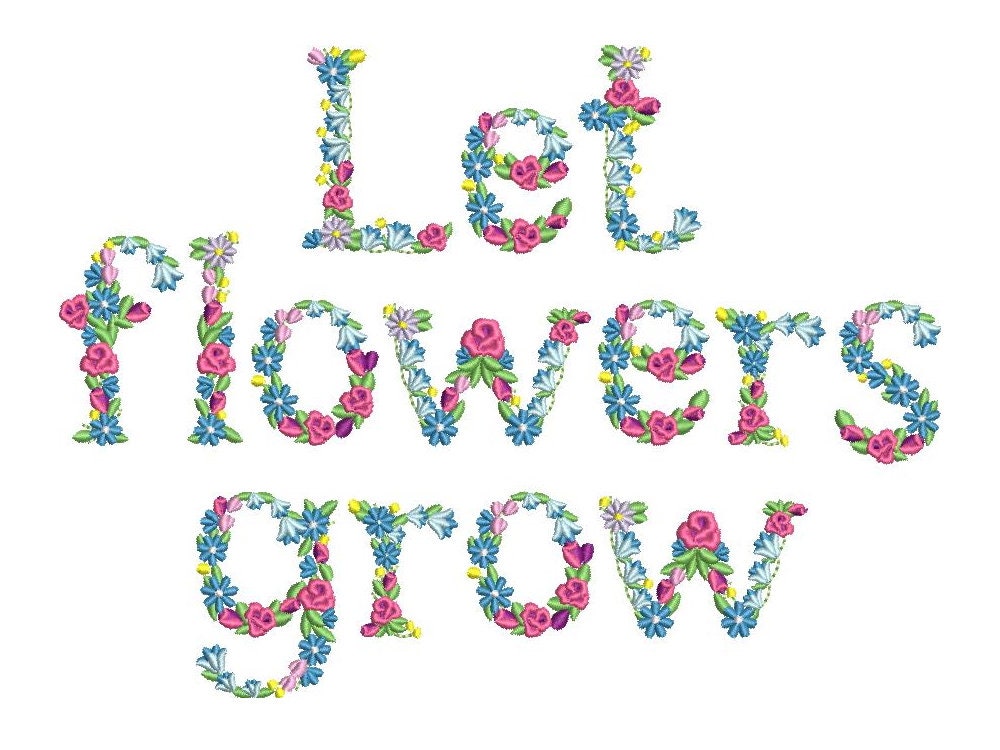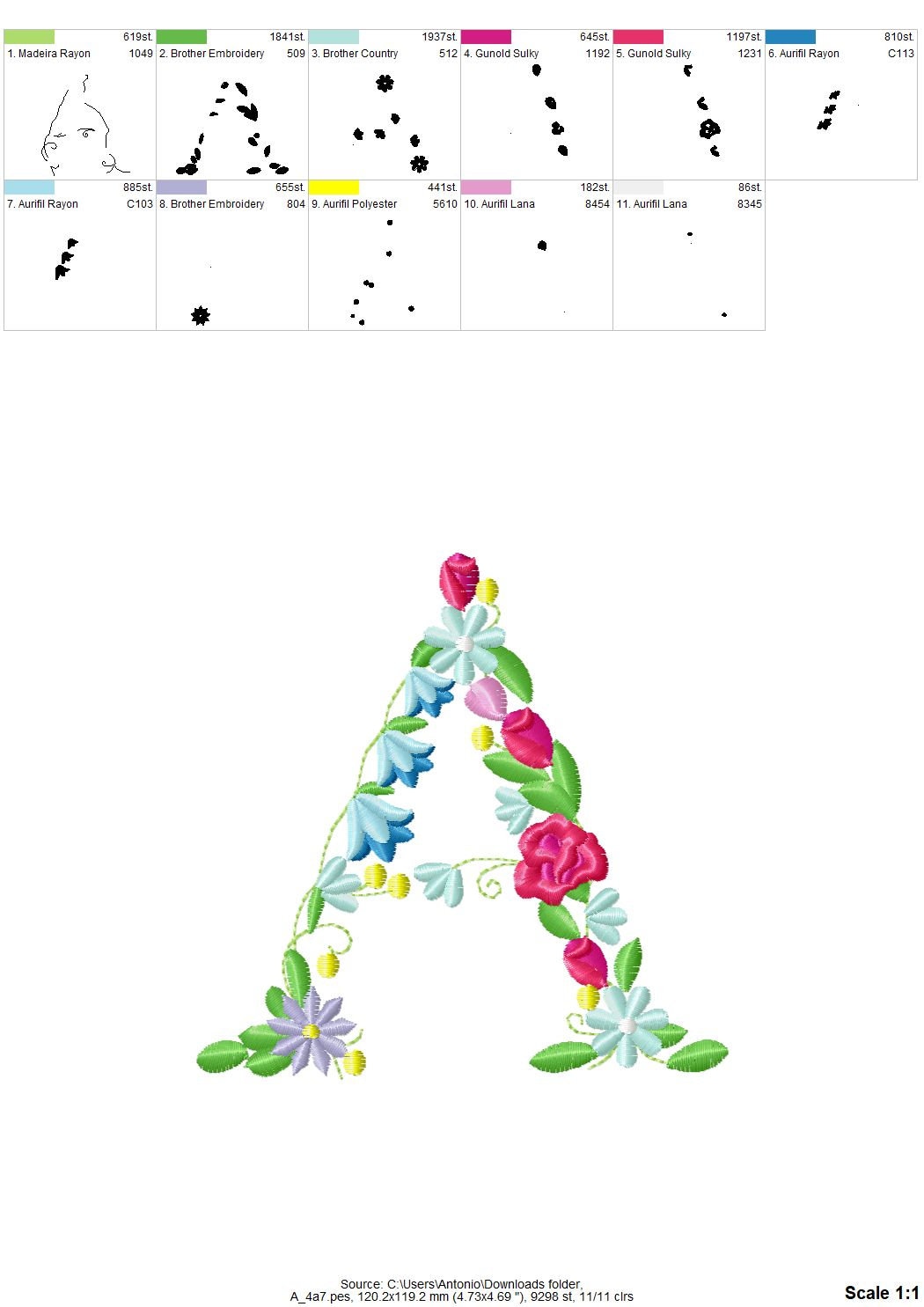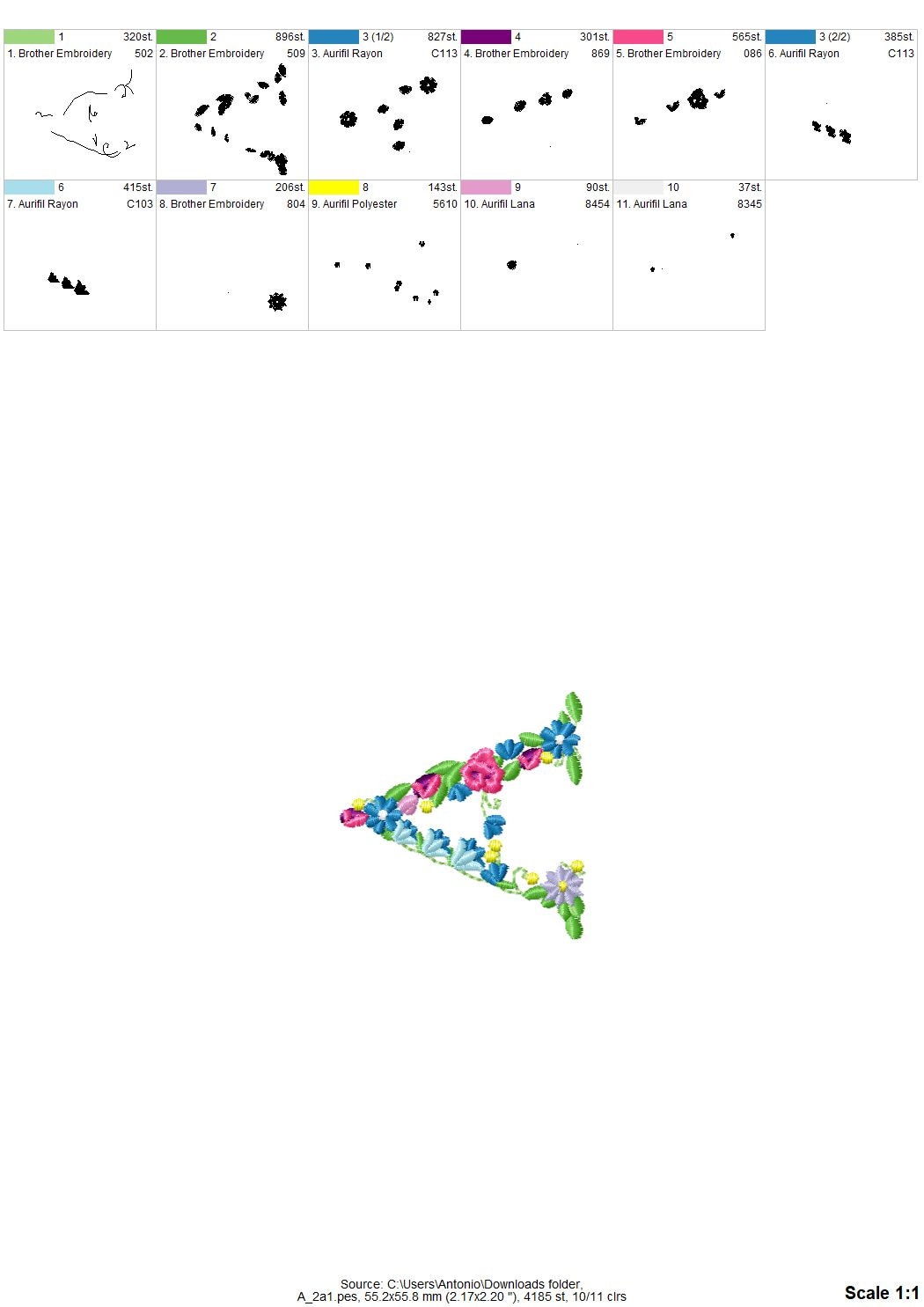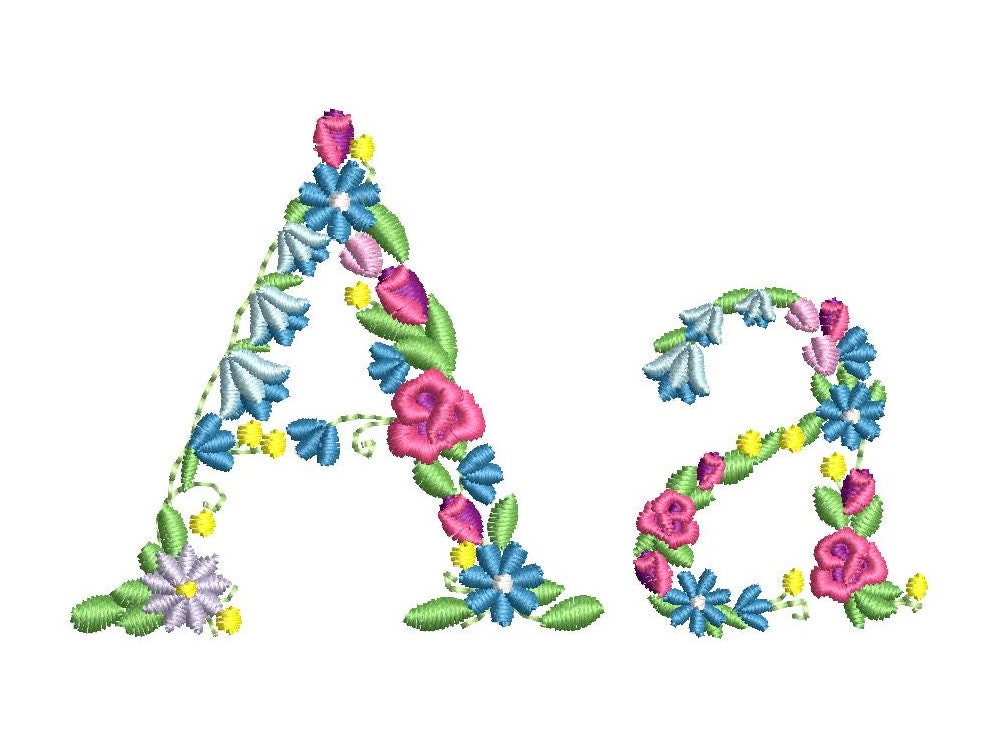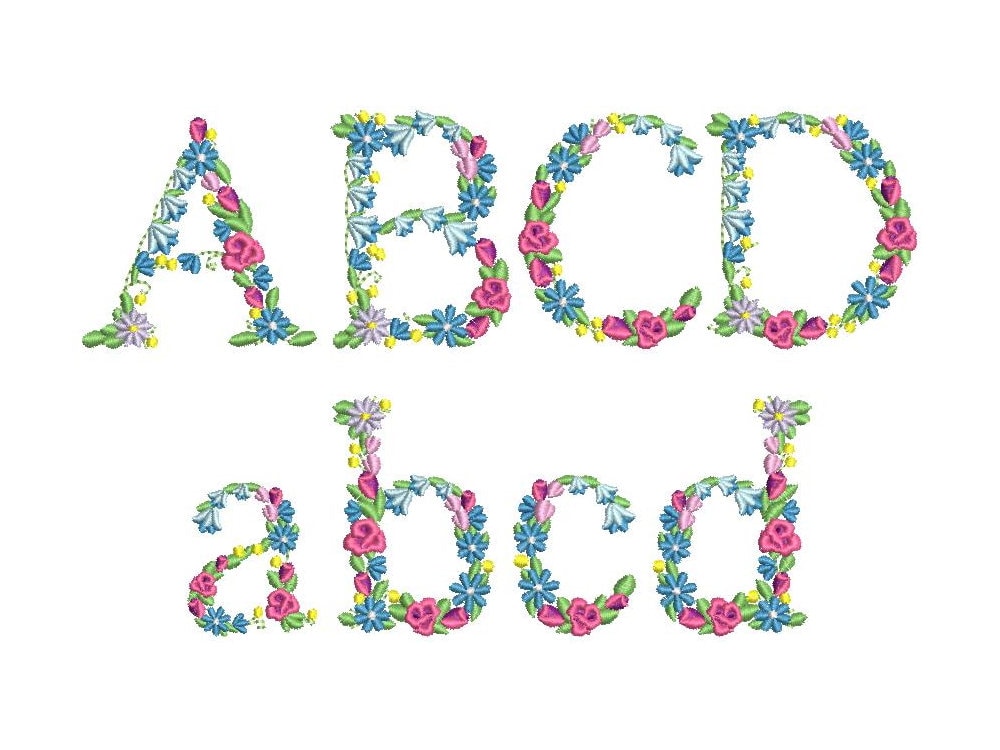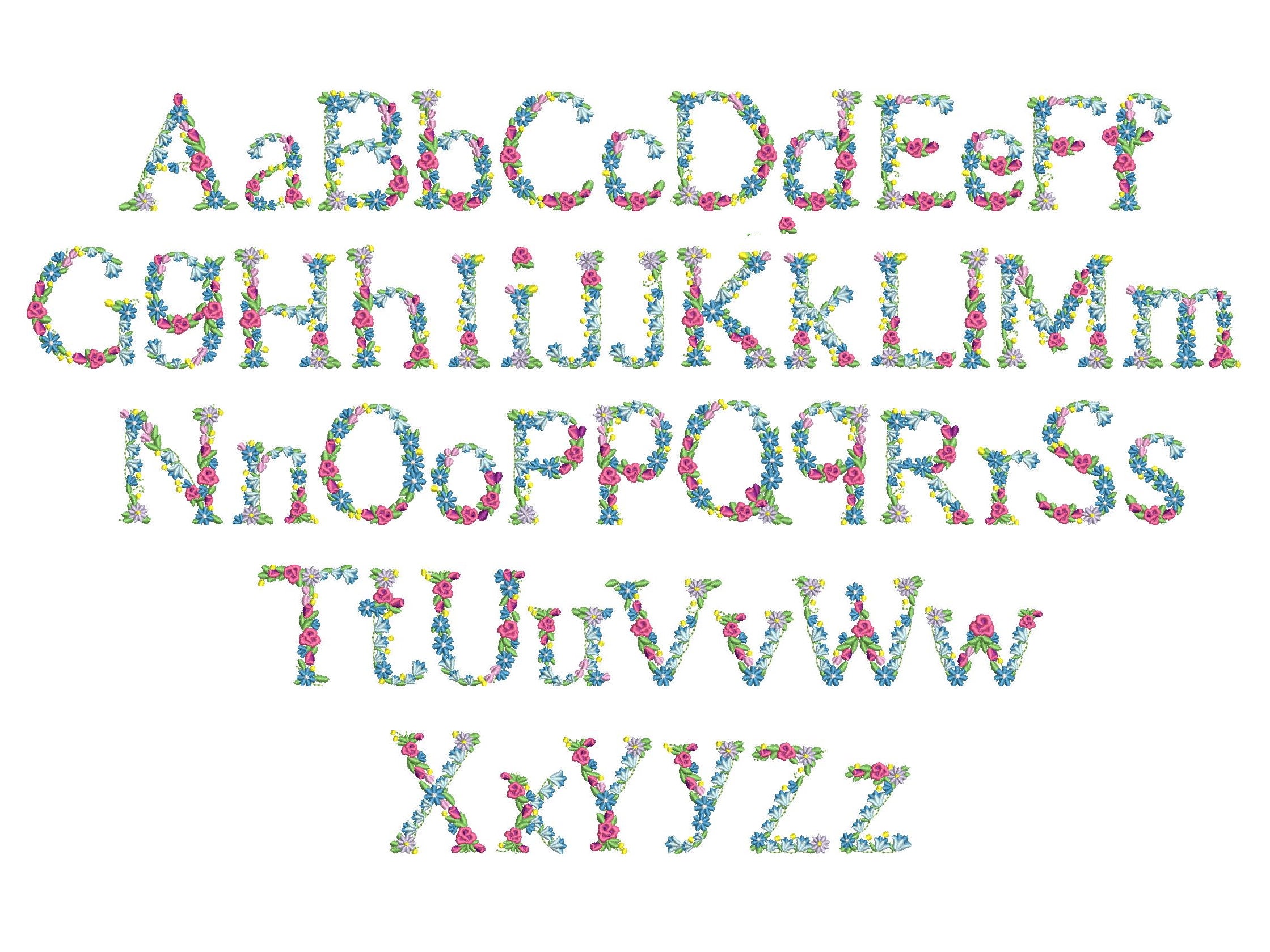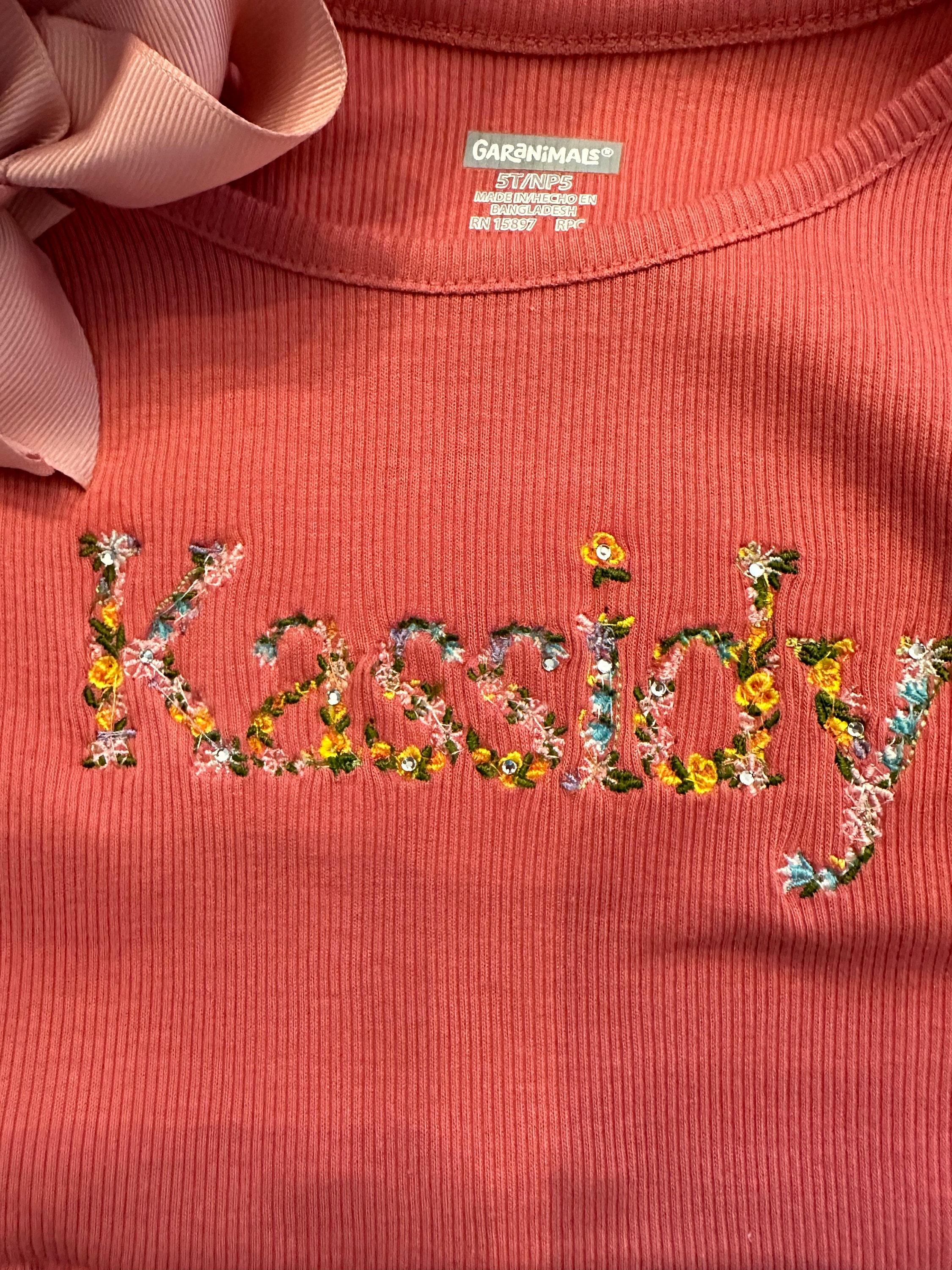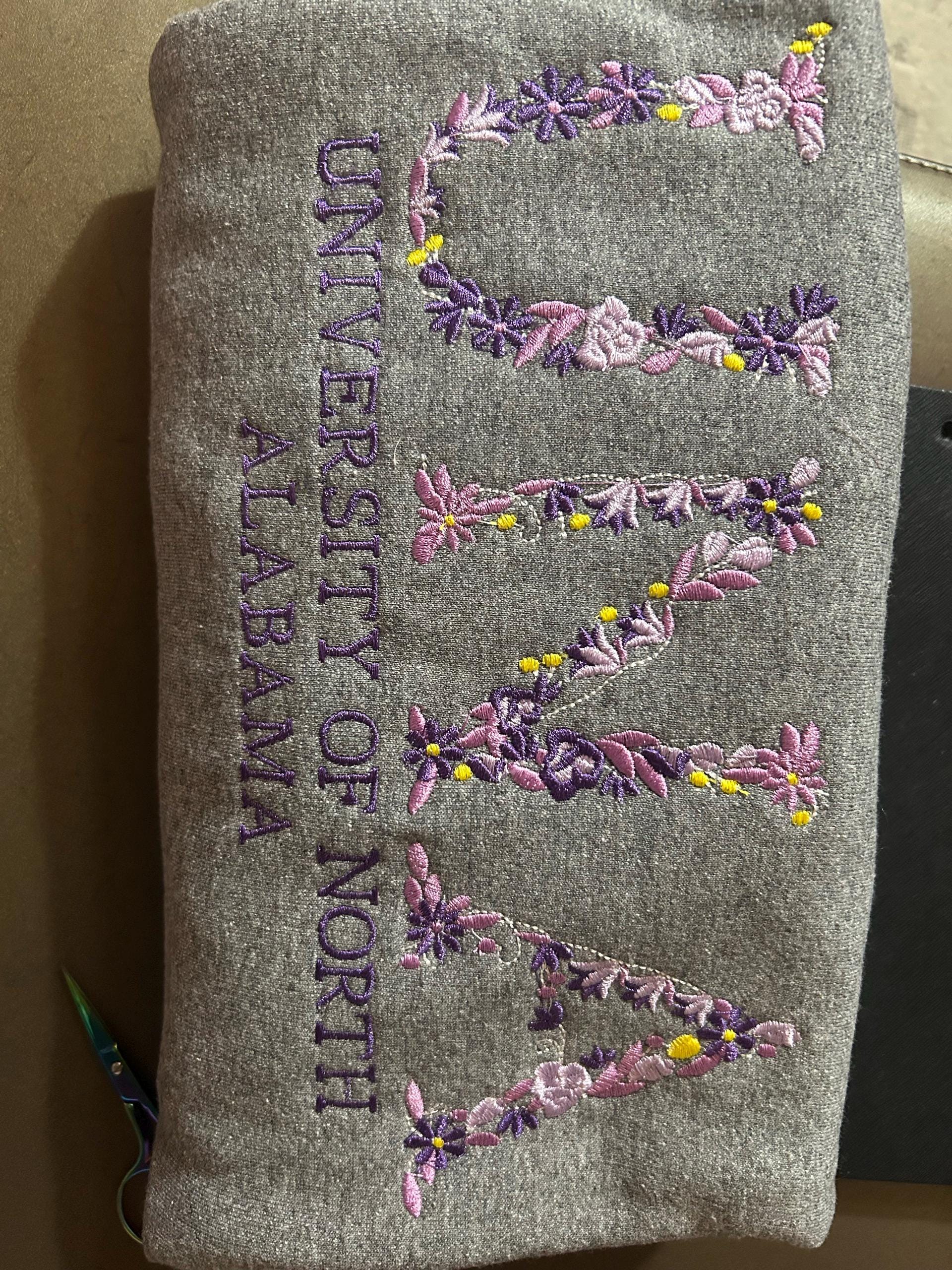
UPDATED! Meadow Bluebell Rose Floral Font Flower alphabet uppercase and lowercase letters initial monogram machine embroidery designs, BX included
Letters Aa - Zz
item did not stitch out well
I really wasn't impressed with how this stitched out. I purchased the other floral font from this seller, and it looks fantastic, but this one just falls short. The little dots around the letters do not look good at all. I ended up skipping that step after seeing how they turned out. The majority of the letters just don't have enough flowers/leaves to fill out the letter shape, so you would have to space out each letter a lot in order to read the word. I have purchased many other files from this seller and loved them, but this one needs work.
I thought the letters would be more dense but it turned out cute anyways